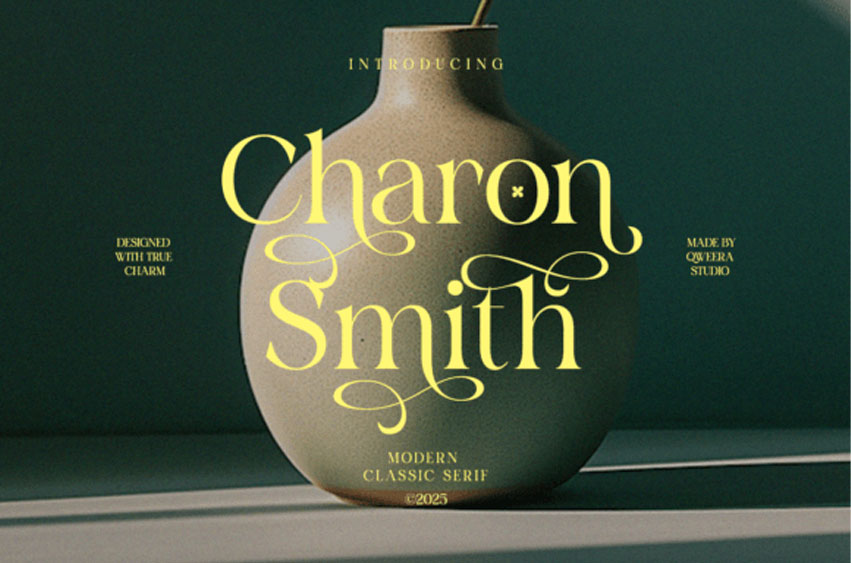
Charon Smith Font
Charon Smith Font Discover the captivating beauty of Charon Smith, a Modern Classic Serif that is absolutely dripping with true charm and refined elegance.
Designed to make a dramatic and luxurious statement, this font features high-contrast letterforms adorned with exaggerated, delicate, and sweeping swashes on both the uppercase and lowercase letters. The beautiful, extended ligatures allow for expressive and custom-looking typography that feels like a bespoke logotype.
This font is a magnificent choice for upscale wedding and event invitations, high-end fine art and photography branding, fashion magazine editorials, cosmetic and jewelry packaging, and any project that demands a touch of historic grandeur blended with a contemporary, stylish flair. Use it to convey sophistication, artistry, and an unforgettable sense of quality.
Charon Smith delivers a clean, sophisticated look for both print and digital projects.
Use Cases
Branding, logos, editorial titles, magazine covers, fashion labels, book design, boutique identity, packaging, luxury websites.